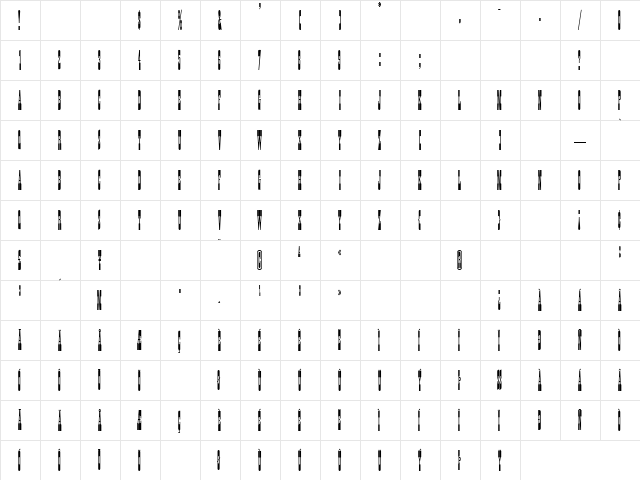
Highway 1 Regular
Design Context for Highway 1 Typeface
Highway 1 is a composed and adaptable typeface that performs quietly and consistently across a wide range of design contexts.